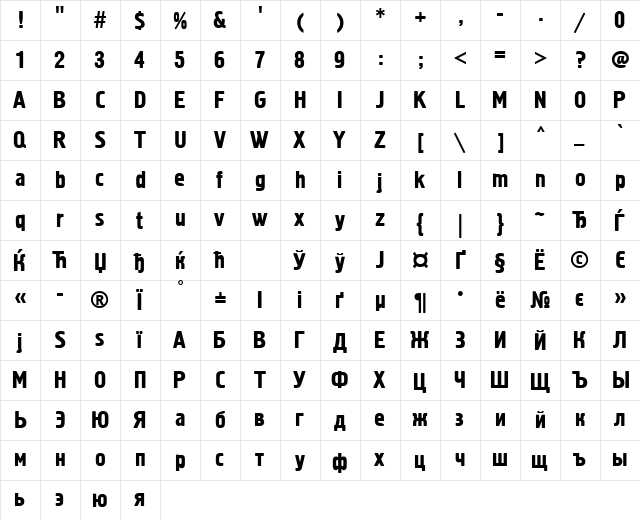
HermesCTT Regular Font Preview
HermesCTT Regular
Design Context for HermesCTT Typeface
HermesCTT is a composed and adaptable typeface that performs quietly and consistently across a wide range of design contexts.